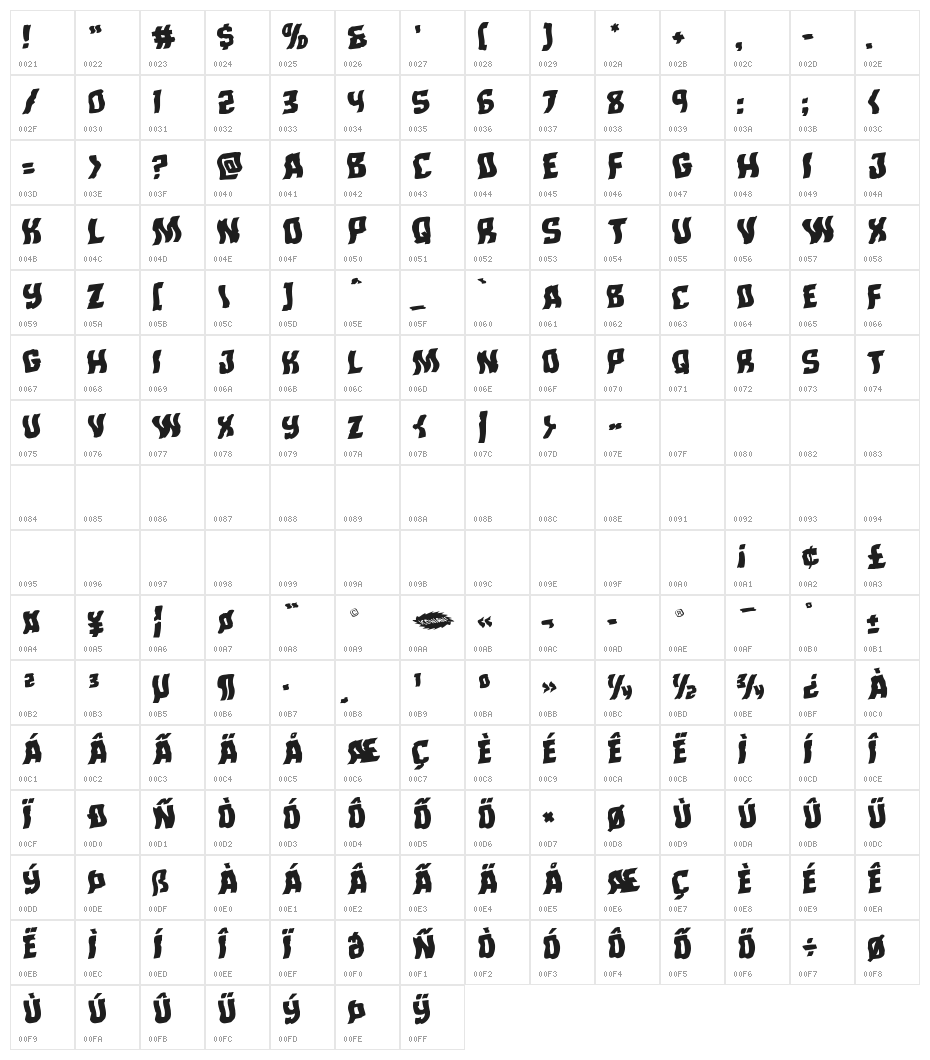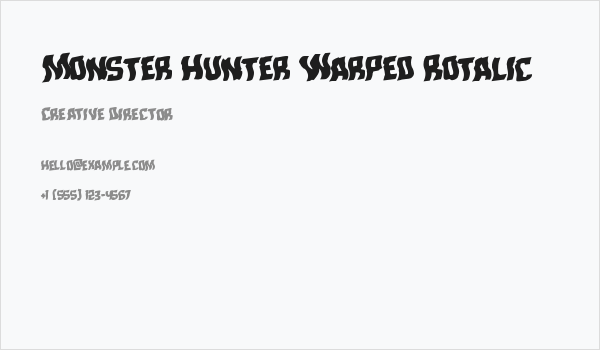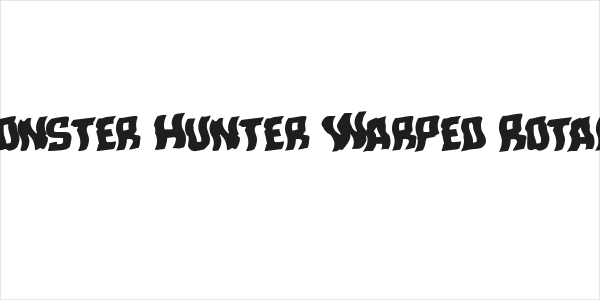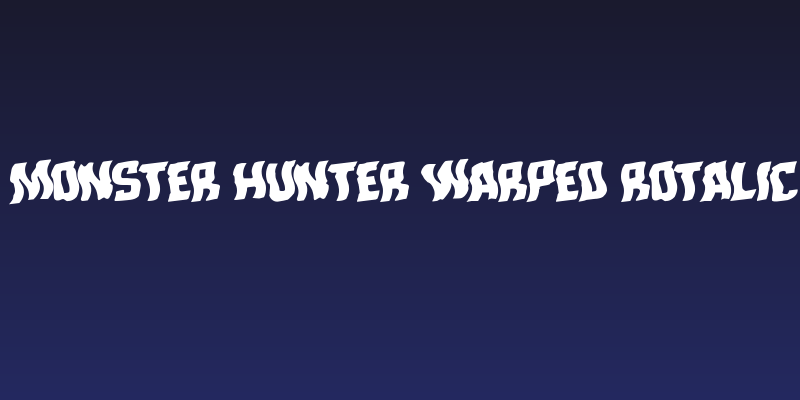
Monster Hunter Warped Rotalic Font
Monster Hunter Warped Rotalic Description
This font features a bold and dynamic style with a warped, italicized appearance. The characters are heavily stylized, with sharp angles and irregular shapes that give a sense of movement and energy. The uppercase and lowercase letters maintain a consistent design, with exaggerated curves and a slightly distorted look. Numbers and special characters follow the same aesthetic, making the font suitable for eye-catching designs. The overall impression is one of boldness and creativity, perfect for projects that require a strong visual impact.
| Proposed Projects | Ideal for video game titles, movie posters, Halloween-themed events, or any project needing a dramatic and energetic typeface. |